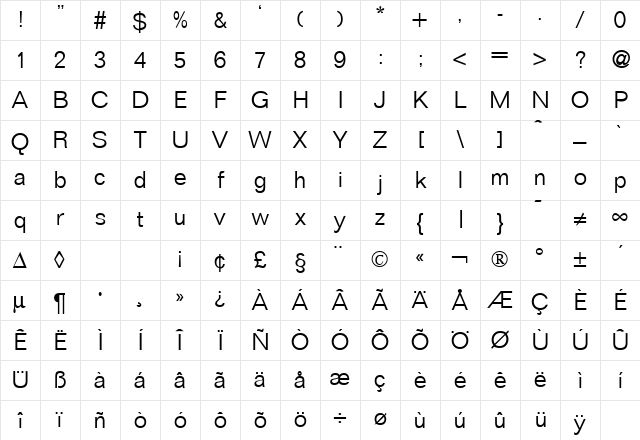
FocusLight Regular Free Font
FocusLight Regular
Design Context for FocusLight
FocusLight is a composed and adaptable typeface that performs quietly and consistently across a wide range of design contexts. Its slender proportions lend an understated elegance to any composition.